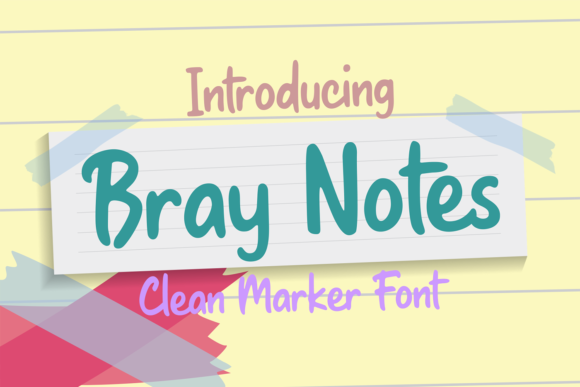
Journey into the world of Bray Notes, a spirited marker-scribbled script font family that bursts with a casual, handwritten charm. Ready yourself to be captivated by its boundless creative potential, a font designed to inject a sense of authenticity and personality into your design projects.
With Bray Notes, imperfections become captivating, and the organic flow of each letter transports you to a realm where spontaneity meets elegance. Its playful, cheerful nature lends itself effortlessly to logos, branding, social media graphics, product packaging, invitations, posters, and any project longing for a touch of individuality.
Embrace the vibrancy of Bray Notes, a visual symphony that will infuse your designs with an unforgettable charm. Unleash your creativity and let Bray Notes be your guide as you craft designs that resonate with your audience, leaving a lasting impression that whispers of authenticity.
Bray Notes, the captivating marker-style script font, awaits you. Dive into its depths and discover a world of boundless creativity, where your designs will flourish and your message will leave an enduring impact.